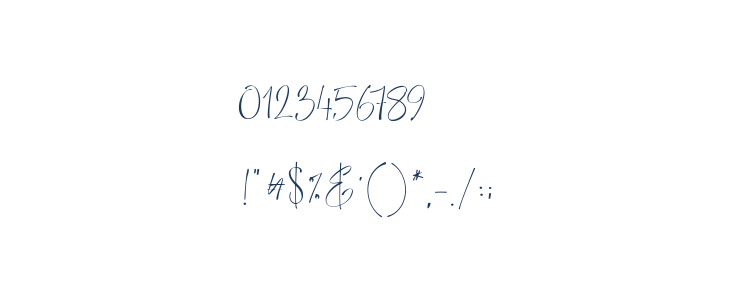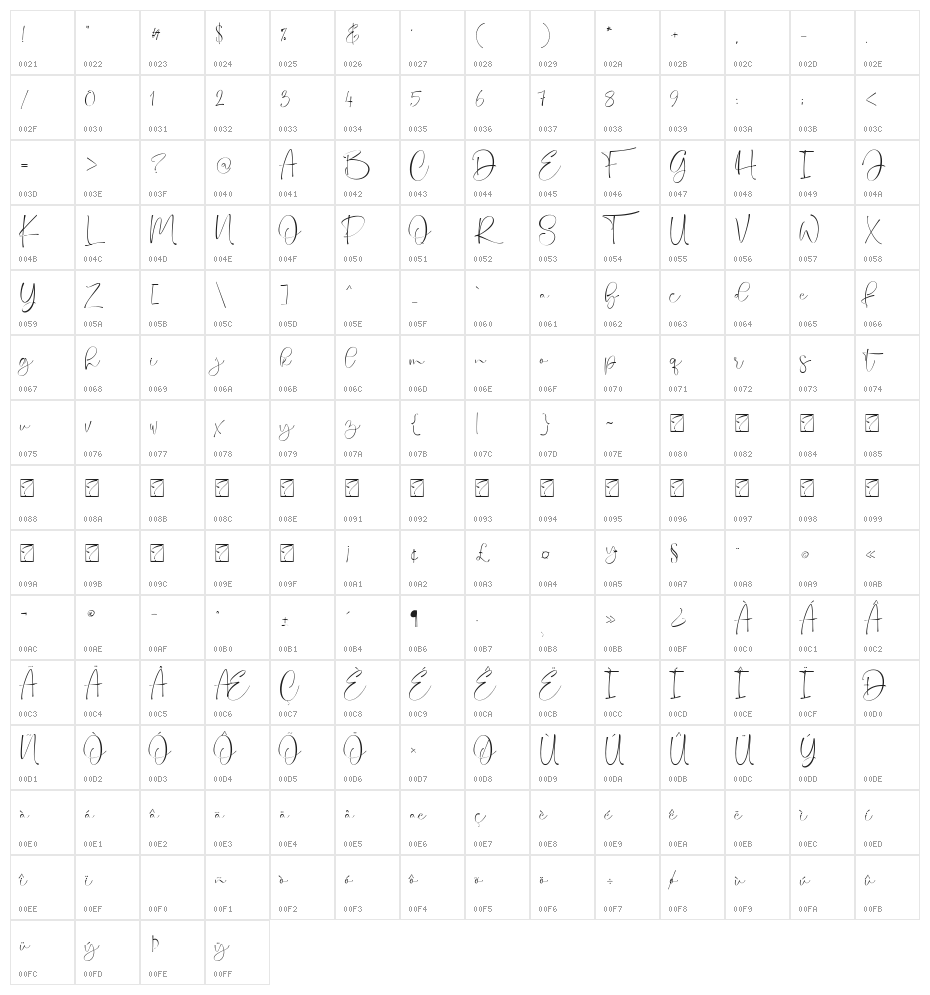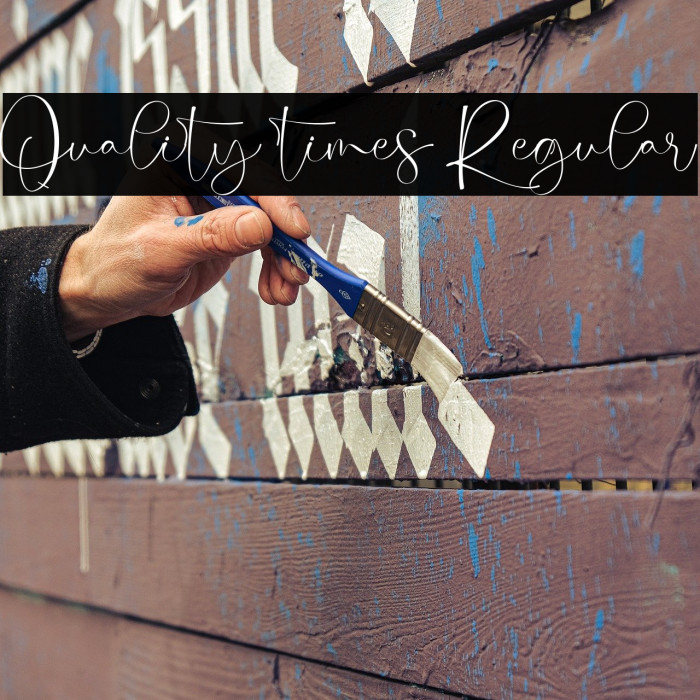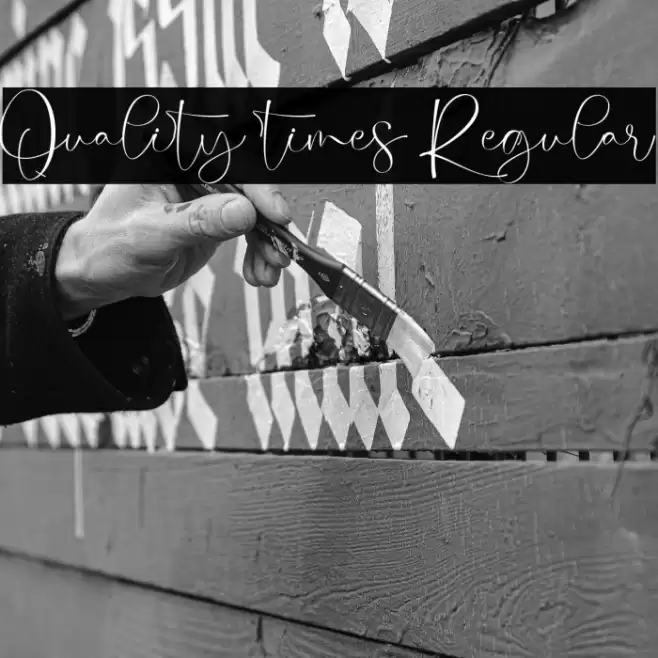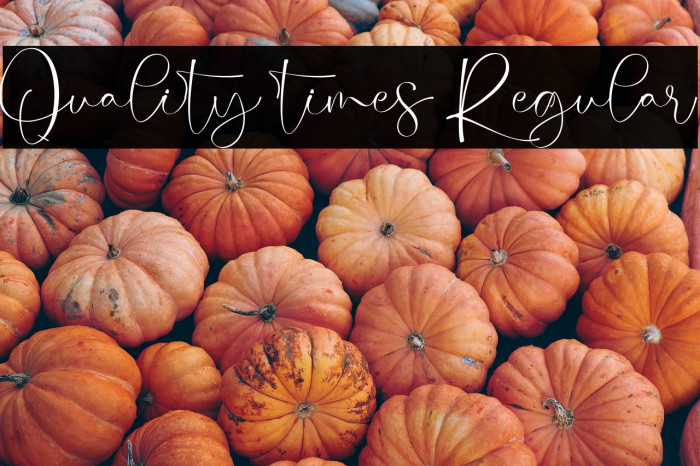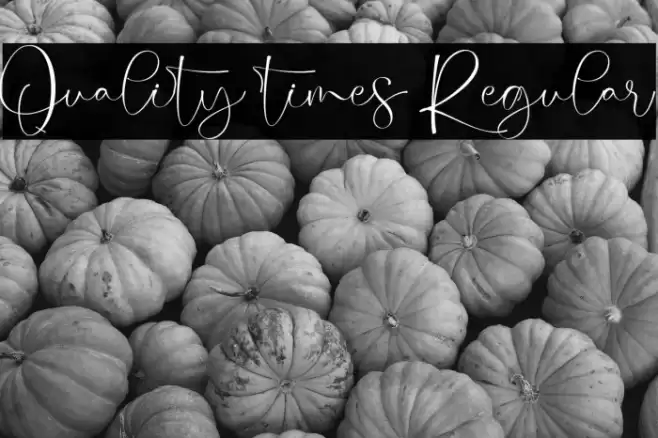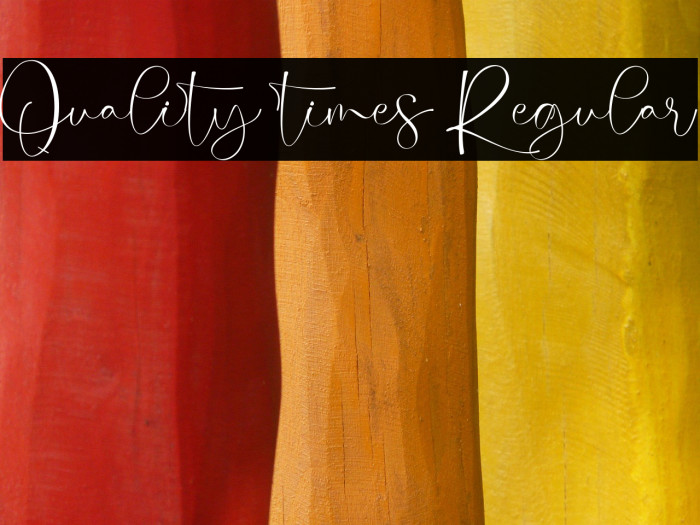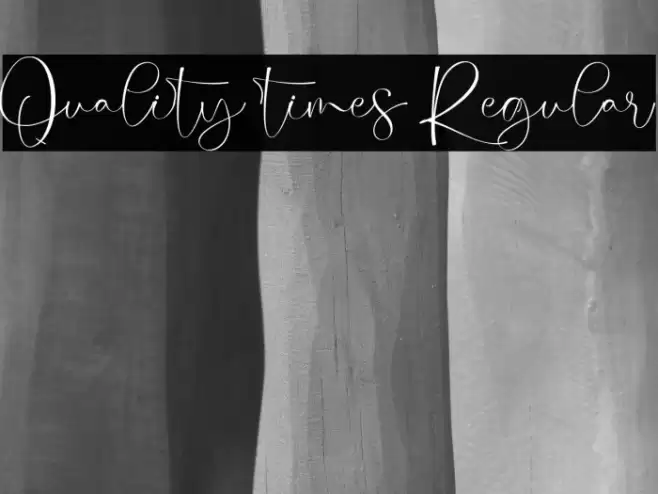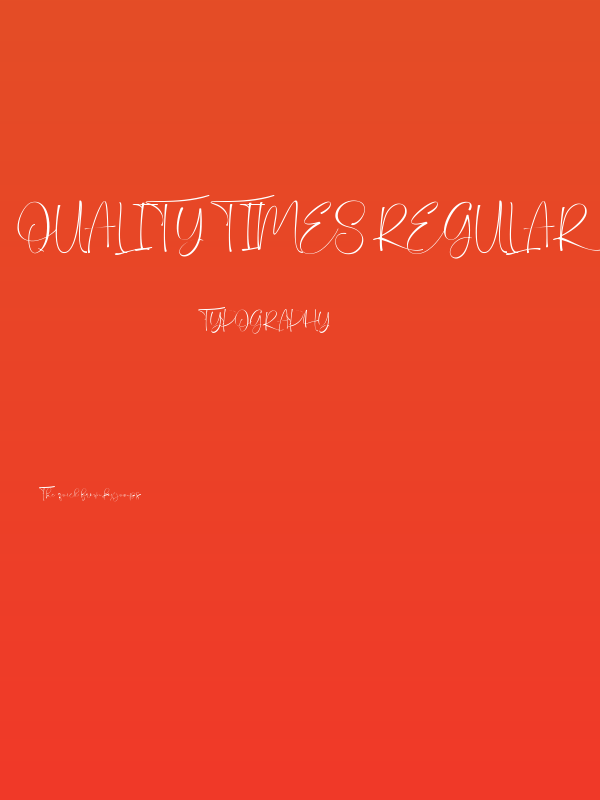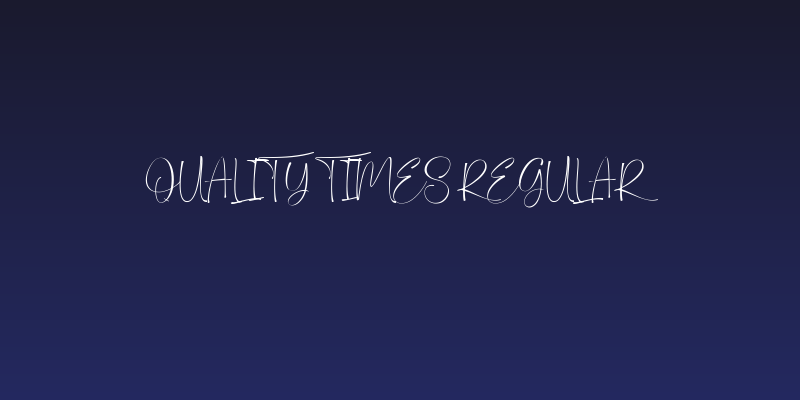
Quality times Regular Font
Quality times Regular Description
This font features an elegant and flowing script style, characterized by its smooth, cursive strokes and artistic flair. The uppercase letters are tall and slender, with a graceful loop and swirl that adds a touch of sophistication. The lowercase letters maintain a consistent flow, with delicate connections between each character, creating a harmonious and fluid appearance. The numerals are styled to match the overall script aesthetic, with a slight slant and rounded edges. Special characters are designed with the same attention to detail, ensuring they blend seamlessly with the rest of the font. This font exudes a sense of elegance and creativity, making it ideal for projects that require a personal and artistic touch.
| Overall Style | Elegant, Artistic |
| Proposed Projects | Ideal for wedding invitations, greeting cards, branding, and artistic projects. |